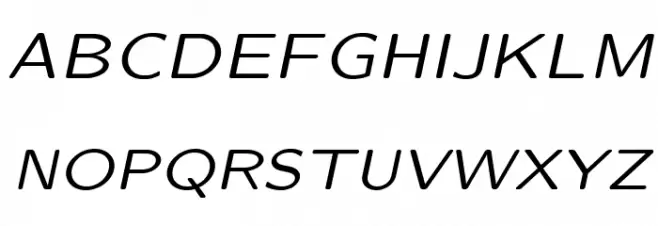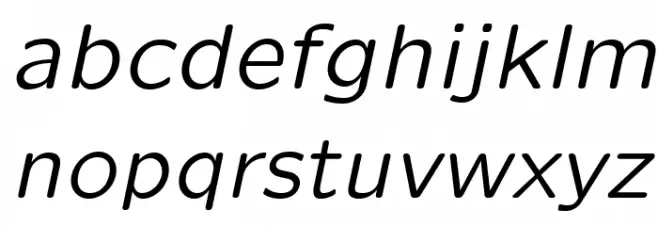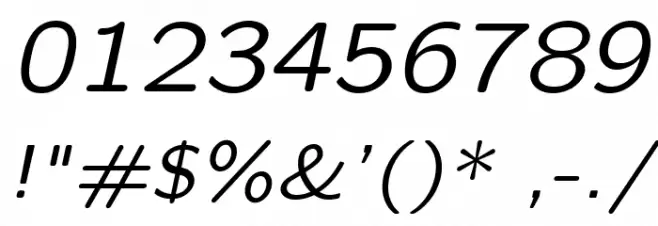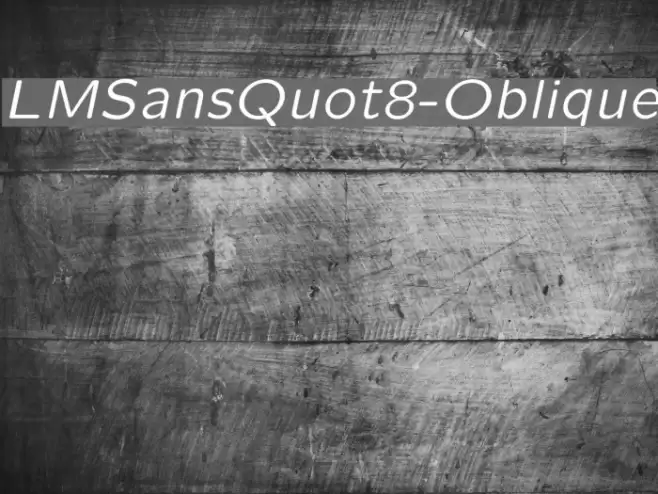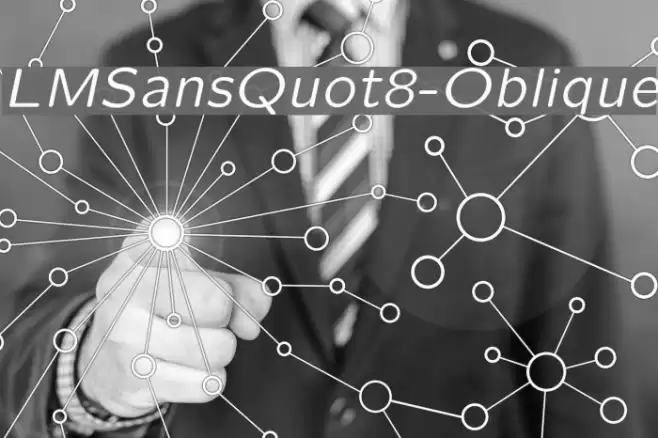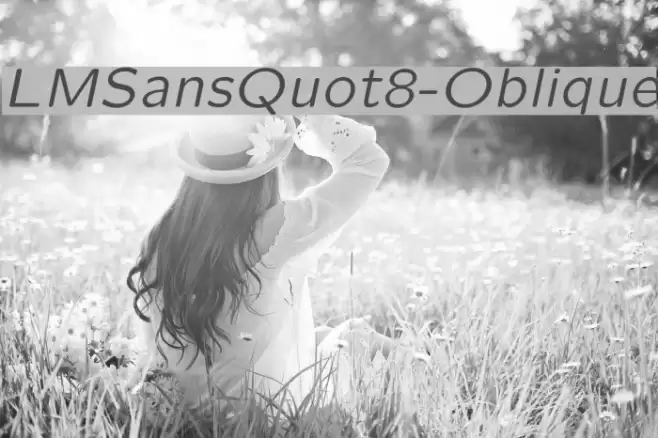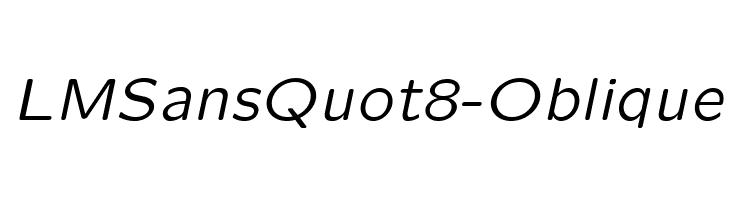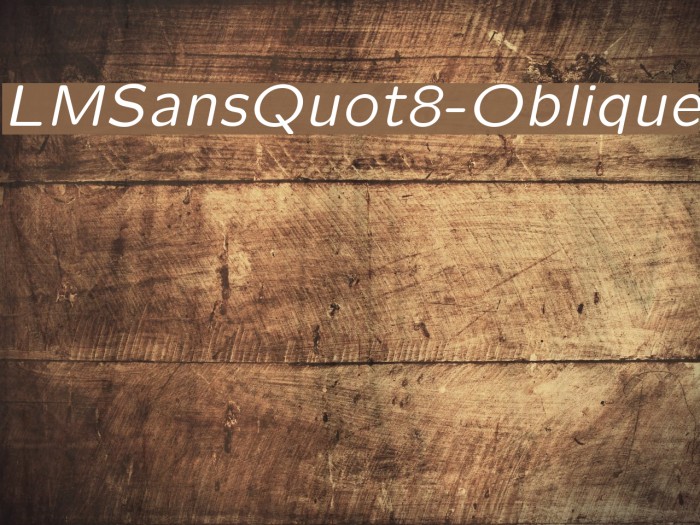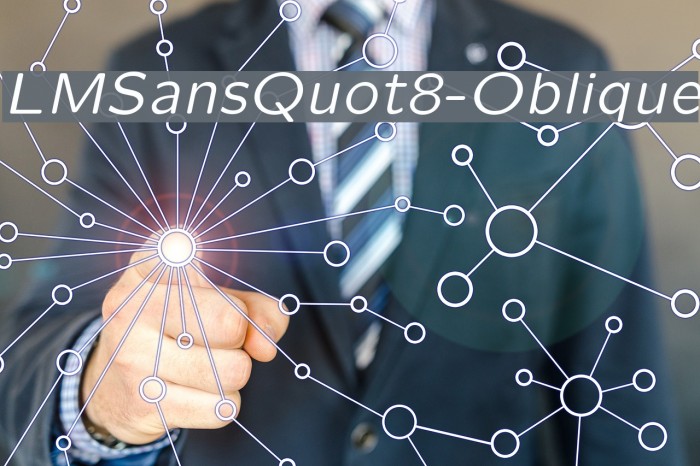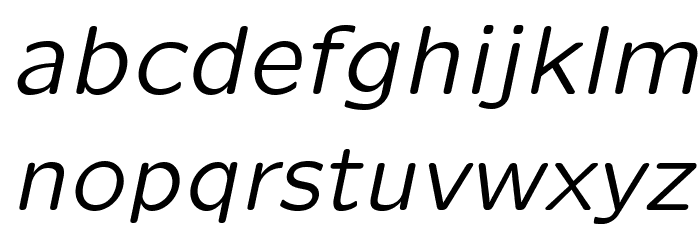
LMSansQuot8-Oblique
This font features a clean and modern sans-serif style with a distinct oblique slant, giving it a dynamic and forward-leaning appearance. The characters are well-proportioned with a consistent stroke width, contributing to a sleek and professional look. The uppercase letters are bold and assertive, while the lowercase letters maintain a smooth and approachable feel. The numerals are clear and easy to read, making them suitable for various applications. Special characters are included, enhancing the font's versatility. Overall, this font is ideal for projects that require a contemporary and stylish touch.
A modern sans-serif font with an oblique slant, offering a sleek and dynamic appearance.
- Proposed Projects: Ideal for branding, advertising, digital content, and editorial design where a modern and professional look is desired.